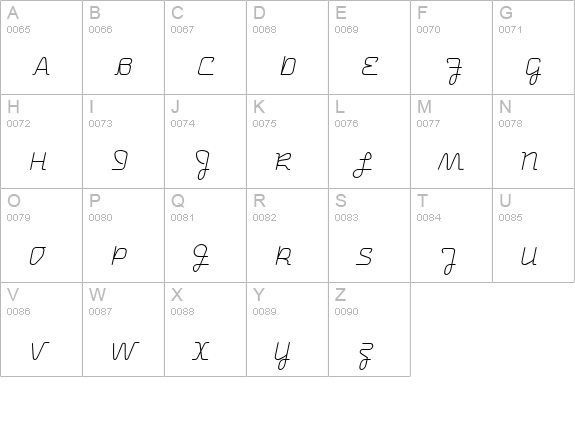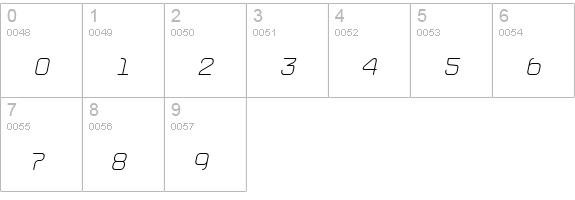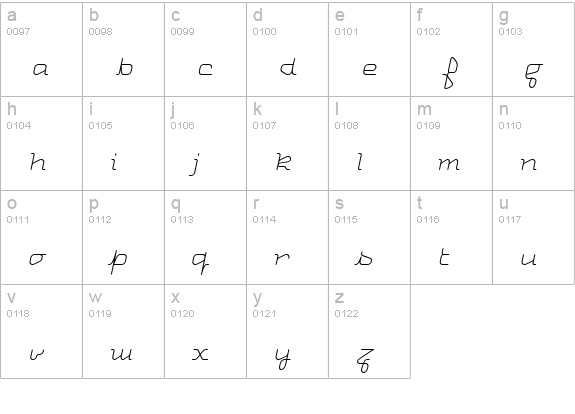
Uniglow-TwentyFiveCursive Font Details
Uniglow-TwentyFiveCursive font is a visually stunning typeface that exudes elegance and sophistication. Its delicate cursive strokes gracefully dance across the page, adding a touch of beauty to any design project. This font effortlessly combines modernity with a timeless appeal, making it perfect for a wide range of applications. With its smooth curves and intricate detailing, Uniglow-TwentyFiveCursive font captures attention and creates a lasting impression. Whether used for branding, invitations, logos, or any creative endeavor, this font adds a touch of class and refinement. One of the most remarkable aspects of Uniglow-TwentyFiveCursive font is that it is freely available to download at FontsMarket.com. This means that you can enhance your designs with this exquisite font without any cost. It offers the perfect blend of quality and accessibility, making it a valuable asset for both professional designers and hobbyists. Uniglow-TwentyFiveCursive font is versatile and customizable, allowing you to experiment with different sizes, weights, and styles to suit your specific needs. Its legibility remains intact even at smaller sizes, ensuring that your text remains clear and readable. Whether you're designing an elegant wedding invitation, a sophisticated logo, or a luxurious brand identity, Uniglow-TwentyFiveCursive font will elevate your creations to new heights. Its free availability at FontsMarket.com ensures that you can add a touch of class to your designs without breaking the bank. Download Uniglow-TwentyFiveCursive font today and unlock the potential to create stunning visuals that leave a lasting impression.